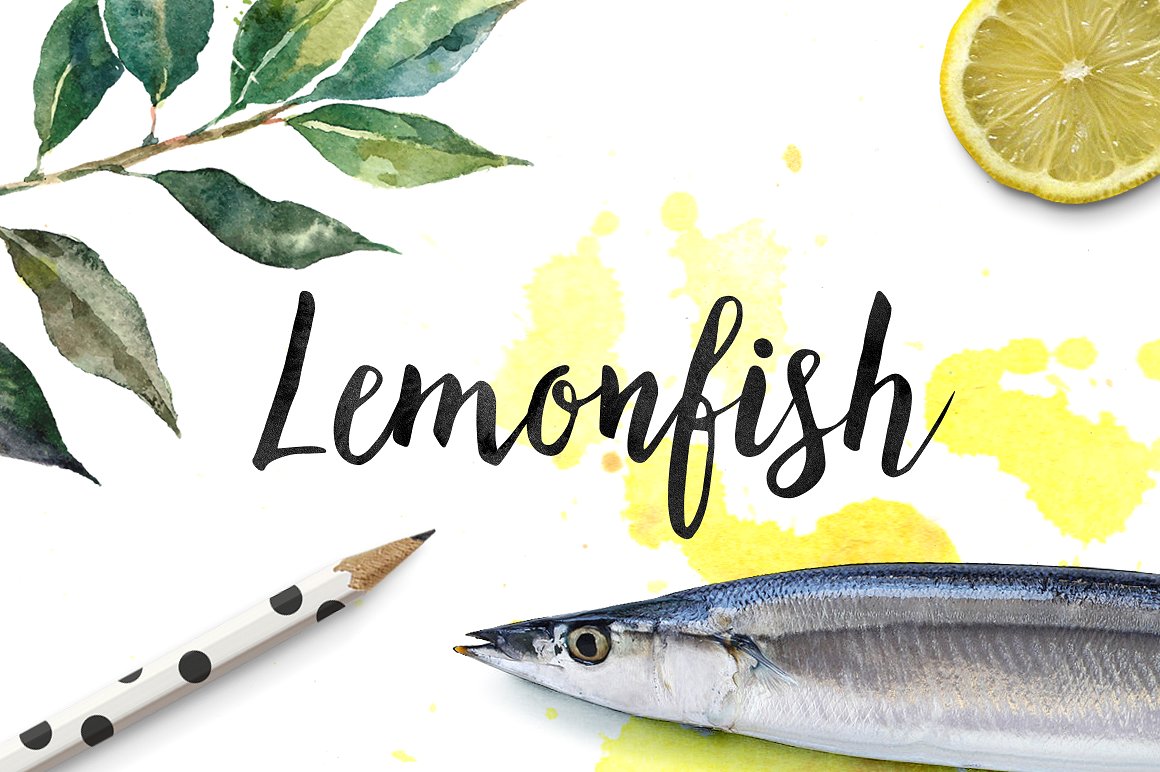
Lemonfish Script
Lemonfish Script Font
I would like to introduce you Lemonfish – the cute handlettered script. Lemonfish will give to your work artistic handmade feel. Great for various kinds of your projects – wedding announcements, greeting cards, invitations, branding, logos etc. Include uppercase, lowercase and all basic English characters. Enjoy Lemonfish!